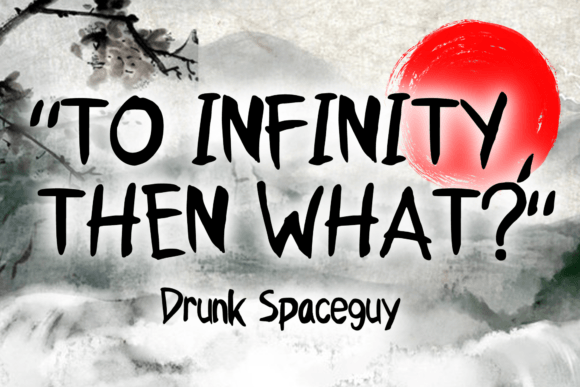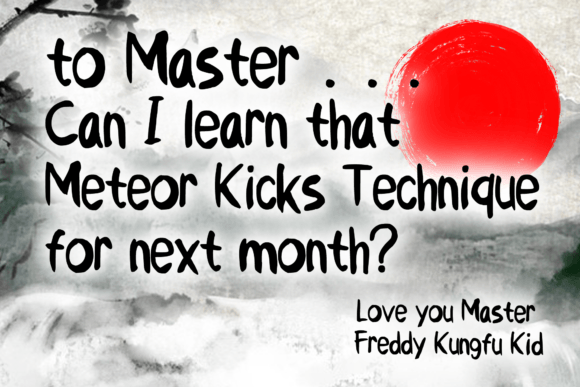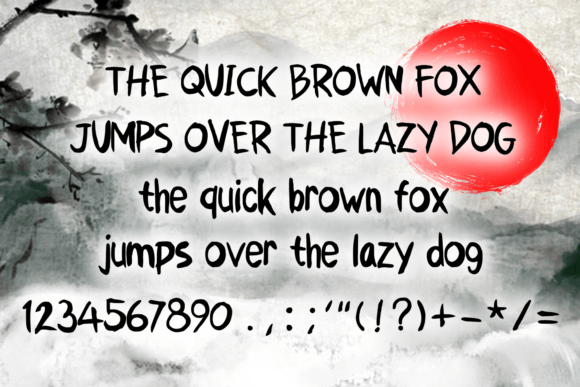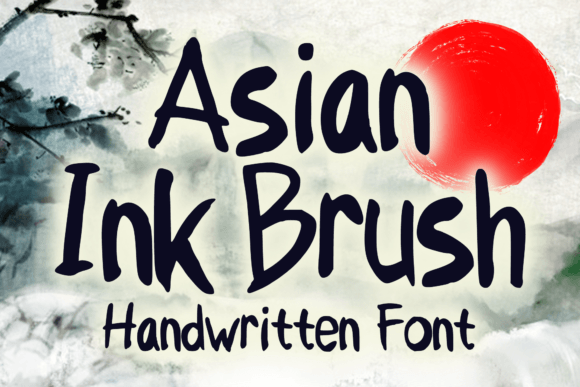
The Perfect Brush Stroke: Discovering the Charm of Asian Ink Brush Font
I’ll never forget the time I was working on a project for a client who wanted a playful, hand-drawn look for their brand. I had spent hours scouring the internet for the perfect font, but nothing seemed quite right. That was until I stumbled upon Asian Ink Brush Font. It was love at first sight! ✨ The beautiful, sweeping strokes and casual charm instantly captured the essence of what my client was looking for. In this article, I’ll share my experience with this gorgeous font, its features, and how you can use it to elevate your designs.
Asian Ink Brush Font is a stunning sumi brush ink handwritten font that’s perfect for a wide range of design projects. Here’s what I love about it:
• 💫 Playful and casual vibe: This font has a wonderfully relaxed, hand-drawn feel that’s perfect for designs that need a personal touch.
• ✅ Highly versatile: From t-shirts and book designs to greeting cards and posters, Asian Ink Brush Font can be used for a wide range of projects.
• ✨ Beautifully crafted: The font’s sweeping strokes and intricate details make it a joy to use and look at.
Of course, no font is perfect, and Asian Ink Brush Font has a few quirks:
• 🤔 Limited use in very small sizes: Due to its intricate details, the font may not be suitable for very small text sizes.
• ⚠️ Some letters may require manual kerning: As with many script fonts, you may need to adjust the kerning between certain letters for optimal results.
The Designer Inspiration Behind Asian Ink Brush Font
Asian Ink Brush Font was inspired by the traditional art of sumi-e, a Japanese ink-painting technique that dates back centuries. The font’s creator was fascinated by the expressive, flowing lines of sumi-e and sought to capture its essence in a digital font. The result is a beautiful, hand-crafted font that’s perfect for designs that need a personal touch.
What is the best way to use Asian Ink Brush Font? Asian Ink Brush Font is perfect for designs that need a playful, hand-drawn feel. Use it for t-shirts, book designs, greeting cards, posters, and more!